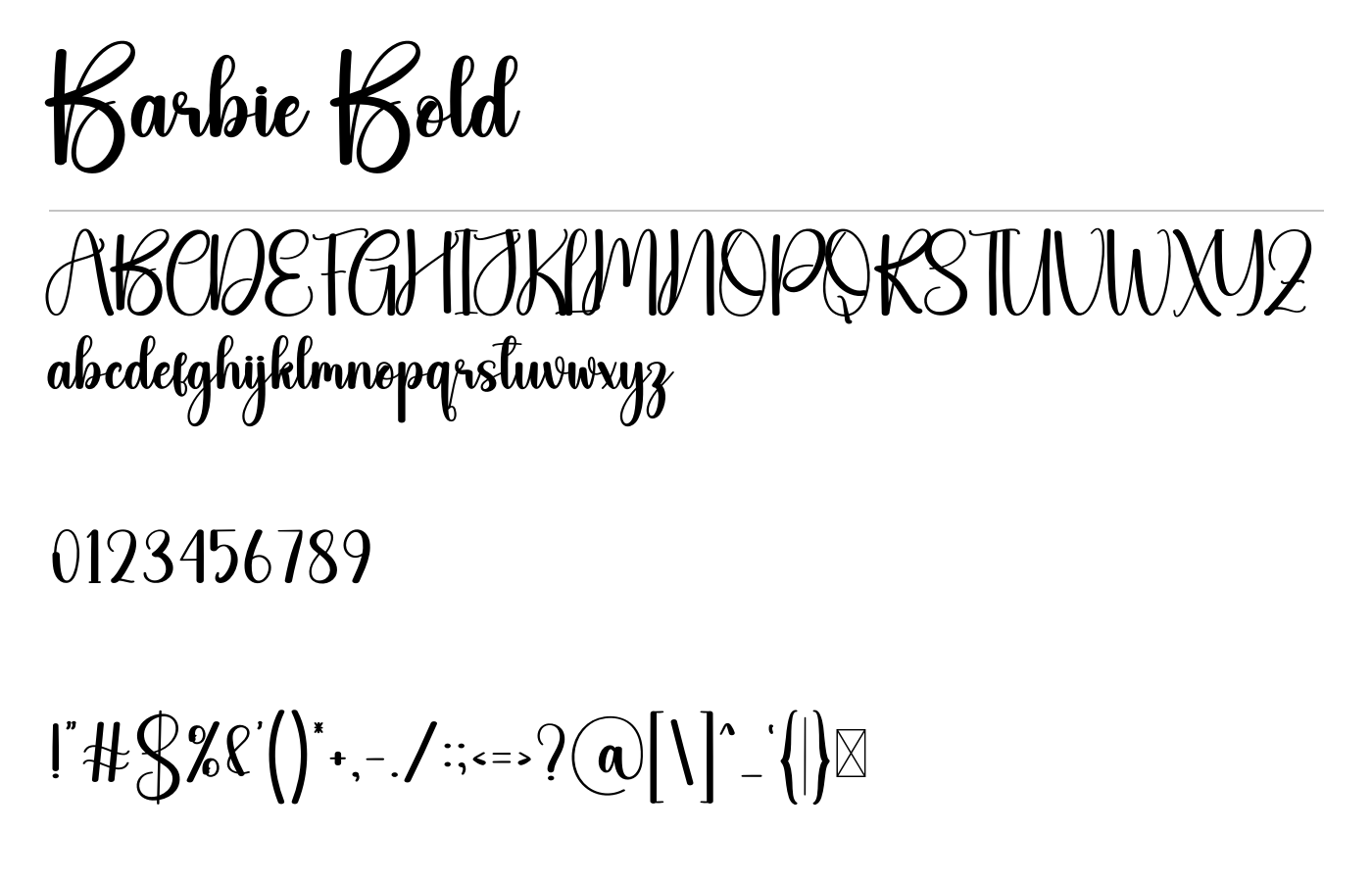
Barbie Bold is a playful and elegant script font with a lively, handwritten style that combines bold, smooth lowercase letters with tall, thin uppercase characters featuring whimsical loops and curls. Its dynamic contrast and flowing strokes make it ideal for feminine branding, invitations, logos, and creative headlines where a friendly yet sophisticated look is desired. This font brings a charming, youthful energy that works beautifully in fashion, beauty, and lifestyle designs.
Barbie Bold Font
About Barbie Bold Font